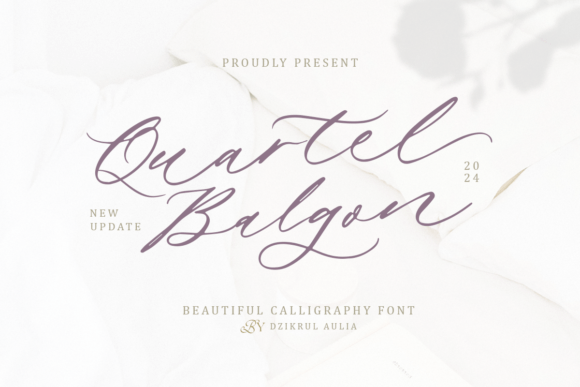
Introducing Quartel Balgon Font: The Epitome of Elegance and Charm
In the realm of typography, few fonts manage to capture the essence of elegance and charm as effortlessly as Quartel Balgon. This dazzling handwritten font has been making waves in the design community, and for good reason. With its fluid strokes, intricate details, and unique personality, Quartel Balgon is the perfect addition to any project that demands sophistication and style.
The Making of a Timeless Font
Quartel Balgon is more than just a font – it’s an experience. Its creation involved a meticulous process of crafting each letter to perfection, ensuring that every stroke, curve, and detail contributes to its overall charm. The result is a font that exudes a sense of luxury and refinement, making it ideal for high-end branding, invitations, and social media graphics.
Key Features of Quartel Balgon Font
- Fluid Strokes: Quartel Balgon’s fluid strokes give it a dynamic, handwritten feel that’s both elegant and approachable.
- Intricate Details: The font’s intricate details add a level of sophistication and refinement, making it perfect for high-end projects.
- Unique Personality: Quartel Balgon has a distinct personality that sets it apart from other fonts, making it an excellent choice for brands looking to establish a strong visual identity.
- Effortless Beauty: The font’s beauty is effortless, making it easy to use and incorporate into various design projects.
Uses of Quartel Balgon Font
Quartel Balgon’s versatility is one of its most significant advantages. This font can be used in a wide range of projects, including:
- Invitations: Add a touch of elegance to your wedding invitations, birthday party invites, or any other special occasion.
- Branding: Establish a strong visual identity for your brand with Quartel Balgon’s unique and sophisticated style.
- Social Media Graphics: Elevate your social media presence with stunning graphics that showcase Quartel Balgon’s effortless beauty.
- Packaging: Add a luxurious touch to your product packaging with Quartel Balgon’s elegant and refined style.
Tips for Using Quartel Balgon Font Effectively
To get the most out of Quartel Balgon, here are some tips to keep in mind:
- Pair it with Neutrals: Balance Quartel Balgon’s elegance with neutral colors like black, white, or gray.
- Experiment with Sizes: Play with different font sizes to create visual interest and hierarchy in your designs.
- Add Texture: Add texture to your designs with subtle patterns or backgrounds to give Quartel Balgon more depth.
- Keep it Simple: Don’t over-accessorize – let Quartel Balgon’s beauty shine on its own.
The Benefits of Using Quartel Balgon Font
So, why choose Quartel Balgon for your design projects? Here are just a few benefits:
- Unique Style: Quartel Balgon’s unique personality sets it apart from other fonts, giving your designs a distinctive look.
- Elegance: The font’s elegance and sophistication make it perfect for high-end projects and luxury brands.
- Versatility: Quartel Balgon can be used in a wide range of projects, from invitations to social media graphics.
- Easy to Use: The font is effortless to use, making it accessible to designers of all skill levels.
In conclusion, Quartel Balgon is a truly exceptional font that deserves a spot in every designer’s toolkit. Its unique blend of elegance, charm, and sophistication makes it the perfect choice for high-end projects, luxury brands, and anyone looking to add a touch of refinement to their designs. With its fluid strokes, intricate details, and effortless beauty, Quartel Balgon is sure to captivate audiences and leave a lasting impression.
FAQs About Quartel Balgon Font
- What is Quartel Balgon font? Quartel Balgon is a dazzling handwritten font that exudes charm and elegance.
- What makes Quartel Balgon unique? Quartel Balgon’s unique personality, fluid strokes, and intricate details set it apart from other fonts.
- Is Quartel Balgon easy to use? Yes, Quartel Balgon is effortless to use, making it accessible to designers of all skill levels.